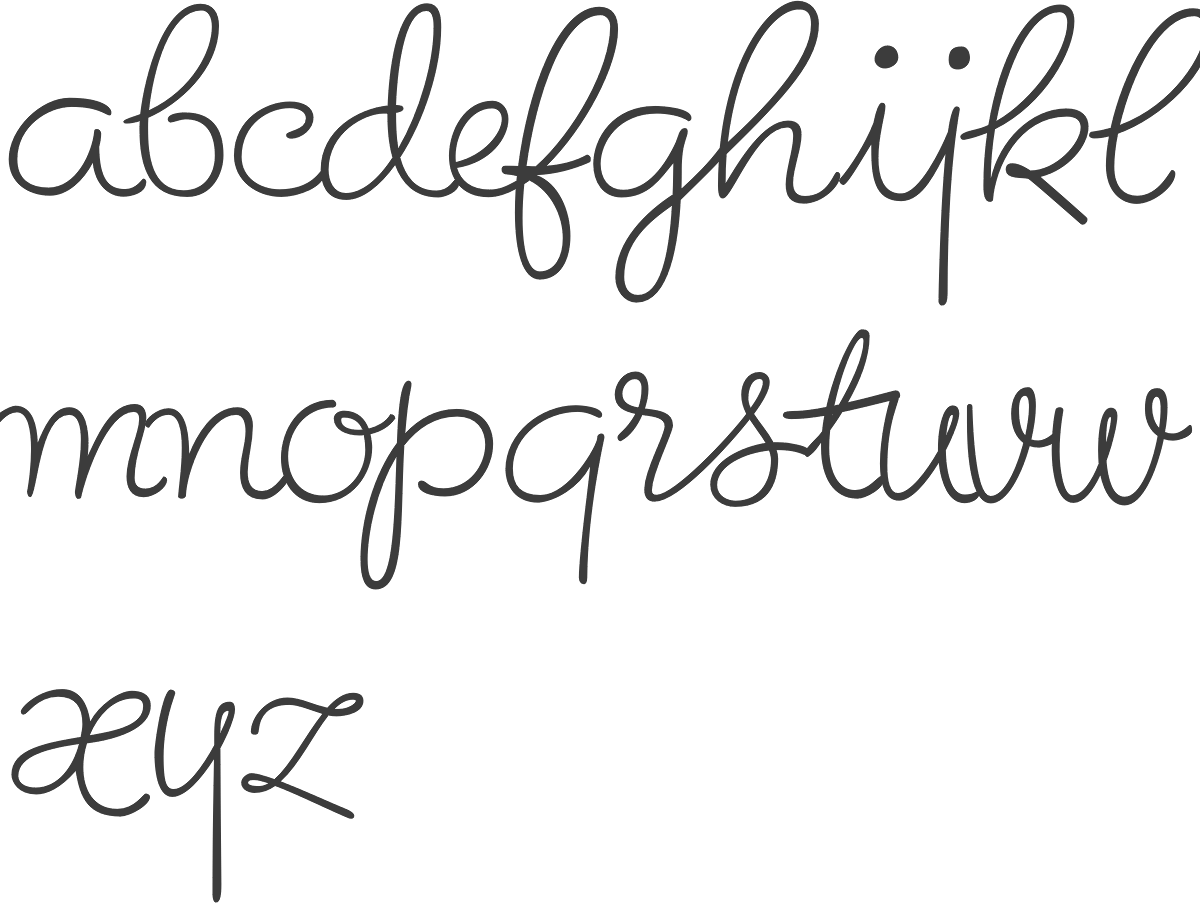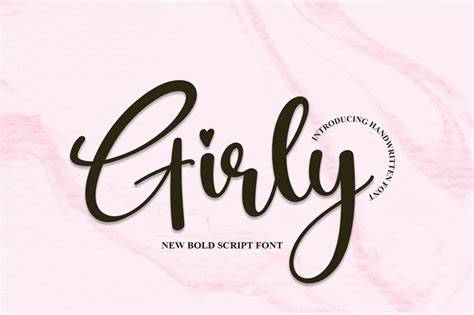
Girly Cursive Fonts For Every Occasion
Cute and Feminine Fonts for All Types of Projects
Girly cursive fonts are the perfect choice for a wide range of projects. Whether you’re looking for something to add a touch of femininity to your business cards, website, or social media posts, you’ll find plenty of options available. In this article, we’ll take a look at some of the best girly cursive fonts available in 2023, as well as give you some tips on how to make the most of them.
The Top Girly Cursive Fonts of 2023
The best girly cursive fonts of 2023 are perfect for adding a touch of femininity and style to any project. From classic cursive fonts to modern, hand-drawn designs, there’s something to suit every taste. Some of the most popular girly cursive fonts include:
- Lilac Blossoms
- Fancy Girl
- Bubbles and Bows
- Pretty Princess
- Sweetheart Script
- Sugar Plum
- Fairytale
These fonts are perfect for adding a touch of whimsy and fun to any project. Whether you’re creating a website, logo, or social media post, you’re sure to find a font that will add a unique and feminine touch to your work.
Tips for Using Girly Cursive Fonts
When using girly cursive fonts, it’s important to keep a few things in mind. First of all, you should always choose a font that is appropriate for the project. For example, a font that is too playful or too ornate may not be the best choice for a professional website or logo. Similarly, a font that is too plain or simplistic may not be the best choice for a social media post.
It’s also important to keep the size and weight of the font in mind. Too small of a font may be difficult to read, while too large of a font may be overwhelming. Additionally, you should consider the amount of space you have available for the font. If you’re working with a limited amount of space, you may need to use a smaller font or adjust the size of the font accordingly.
Finally, you should also consider the alignment of the font. For example, if you’re using a script font, it’s important to make sure that the letters are all aligned correctly. This will ensure that the font looks professional and is easy to read.
Finding the Perfect Girly Cursive Font
When it comes to finding the perfect girly cursive font, it’s important to take your time and consider all of your options. There are many different fonts available, so it’s important to find one that is appropriate for your project. Once you’ve chosen a font, you can then use the tips above to ensure that it looks professional and is easy to read.
Girly cursive fonts are a great way to add a touch of femininity and style to any project. Whether you’re creating a website, logo, or social media post, you’ll be sure to find a font that will add a unique and stylish touch to your work. With so many different options available, you’ll be sure to find the perfect font for any project.